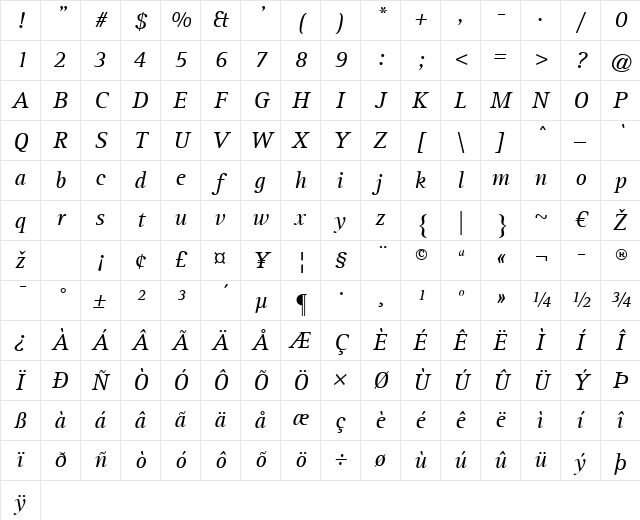
Agfa Rotis Serif Italic
Agfa Rotis Serif Family
Design Context for Agfa Rotis Serif
Agfa Rotis Serif carries the refined structure of traditional serif typography, with bracketed terminals and considered proportions that communicate credibility and craft. The slanted form adds forward momentum and visual energy.